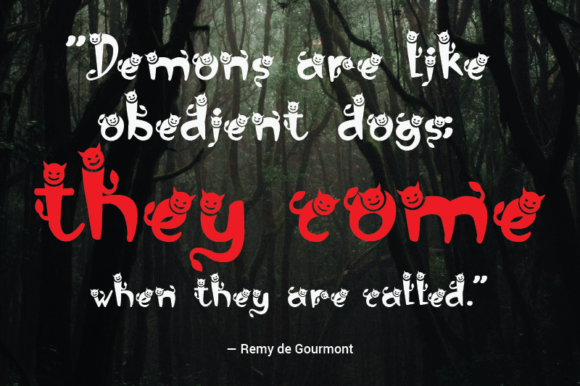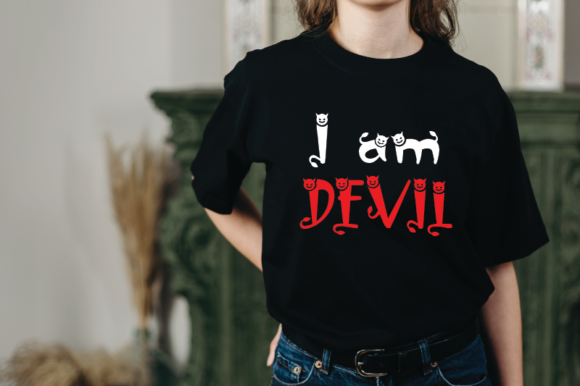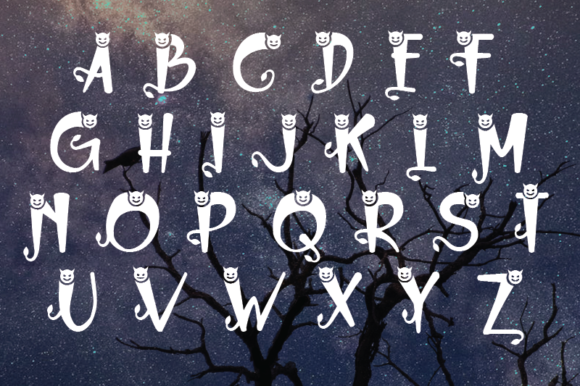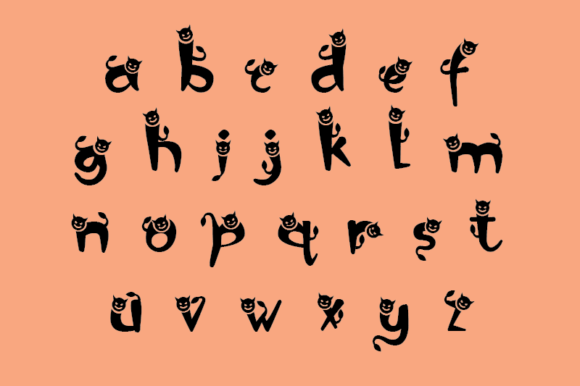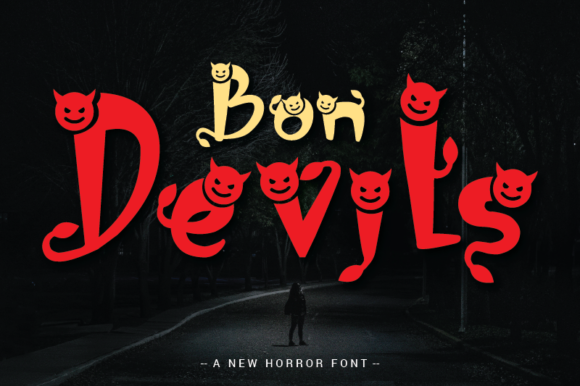
Unleash the Spookiness: Discover the Unique Bon Devils Font
Are you a designer or crafter looking for a font that will make your Halloween-themed creations stand out from the crowd? Look no further than the Bon Devils Font, an incredibly unique and interesting display font that features horns. This font is sure to add a touch of spookiness and personality to your designs, making them truly unforgettable.
The Unique Features of Bon Devils Font
Bon Devils Font is not your average font. Its distinctive feature is the incorporation of horns into its design, giving it a bold and eye-catching look. The font is perfect for designers and crafters who want to create Halloween-themed designs that are both creepy and fun. The horns add a playful touch to the font, making it suitable for a wide range of creative projects, from party invitations to social media graphics.
Why Choose Bon Devils Font for Your Halloween Designs?
There are many reasons why Bon Devils Font is the perfect choice for your Halloween designs. Here are just a few:
- Unique and Memorable: The Bon Devils Font is unlike any other font you’ll find. Its unique design makes it instantly memorable, ensuring that your designs will stand out from the crowd.
- Versatile: Despite its Halloween theme, the Bon Devils Font is versatile enough to be used in a wide range of creative projects, from party decorations to digital graphics.
Creative Ways to Use Bon Devils Font
The Bon Devils Font is incredibly versatile, and can be used in a wide range of creative projects. Here are a few ideas to get you started:
- Halloween Party Invitations: Create spooky and fun party invitations that will set the tone for your Halloween celebration.
- Social Media Graphics: Use the Bon Devils Font to create eye-catching social media graphics that will grab the attention of your followers.
- DIY Crafts: Add a personal touch to your DIY crafts, such as pumpkins, ghosts, and other Halloween decorations.
- Web Graphics: Use the Bon Devils Font to create web graphics, such as banners and headers, that will add a touch of personality to your website.
Tips for Using Bon Devils Font Effectively
Here are a few tips for using the Bon Devils Font effectively:
- Use it Sparingly: While the Bon Devils Font is eye-catching, it can be overwhelming if used too much. Use it sparingly to add emphasis to your designs.
- Pair it with Other Fonts: Pair the Bon Devils Font with other fonts to create a unique and interesting contrast.
- Experiment with Colors: Experiment with different colors to find the perfect combination that will make your designs pop.
The Bon Devils Font is a unique and interesting display font that is perfect for designers and crafters looking to add a touch of spookiness to their Halloween-themed creations. Its distinctive features, versatility, and ease of use make it an excellent choice for a wide range of creative projects. Whether you’re creating party invitations, social media graphics, or DIY crafts, the Bon Devils Font is sure to make your designs stand out from the crowd.